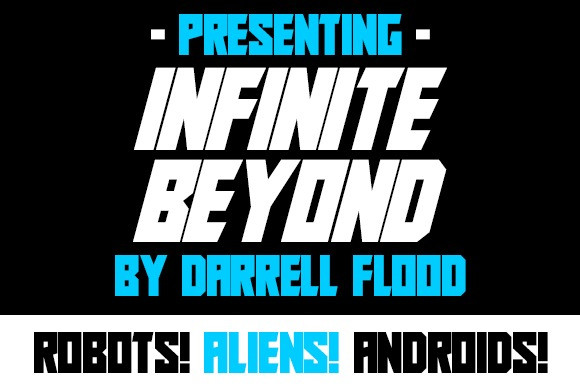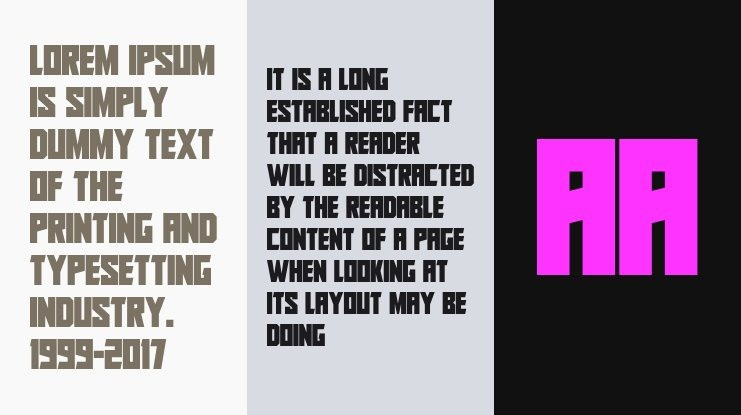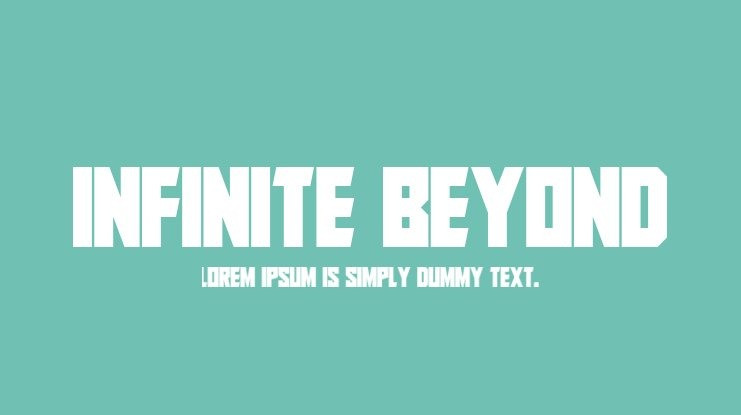
Infinite Beyond Font
Infinite Beyond Display Font, A modern, angular font in an edgy, energetic style. Perfect for sci-fi themes, high tech presentations and general fiction use!